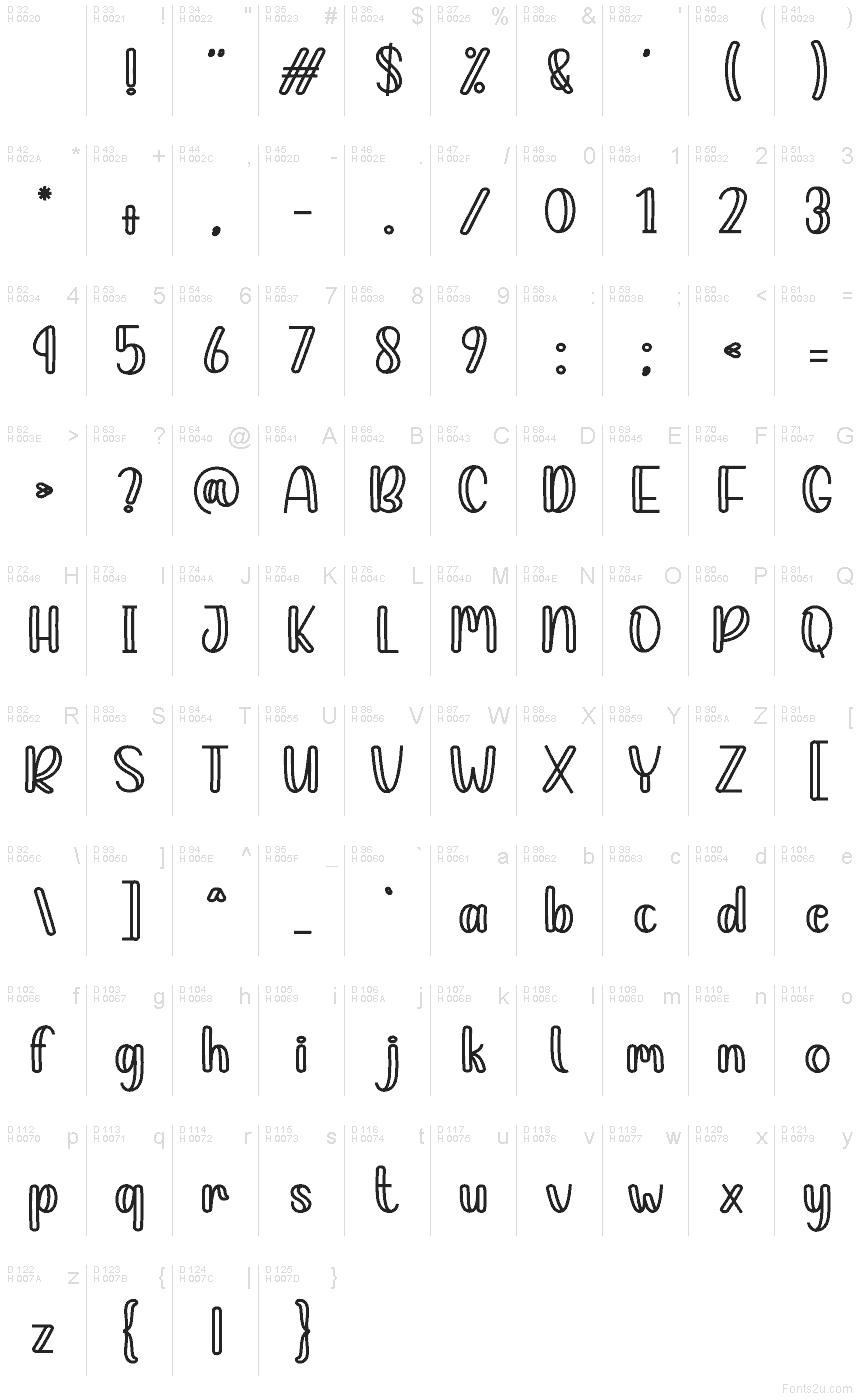
Baby Sleep
Baby Sleep font by Andi Moz is a free outlined brush script font. It stands out with a soft, inky outline that keeps the letterforms light and airy while still feeling hand-painted. Rounded terminals, gentle slant, and roomy counters create an easy, lullaby-like rhythm—friendly without being sugary, playful yet legible. The double-line texture adds charm without bulk, so headlines feel cozy, not heavy.
Using Baby Sleep, you’ll get a natural fit for baby shower invites, nursery wall art, bedtime story titles, kids’ product packaging, craft labels, and sweet social posts. This free font shines when set large, letting the outline breathe; pair it with a clean, lightweight sans to keep the message crisp.